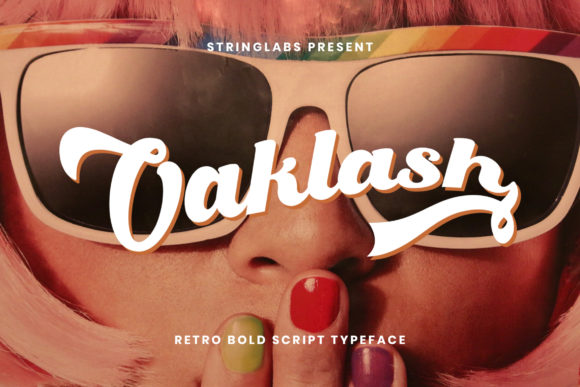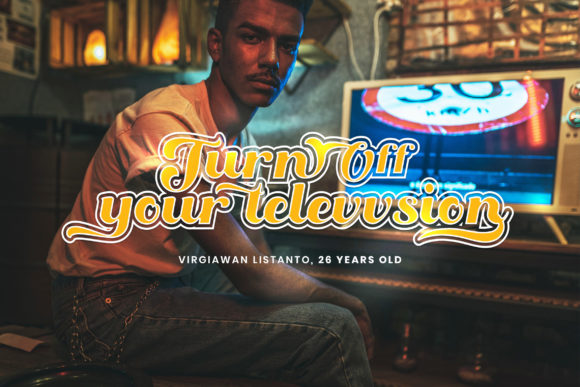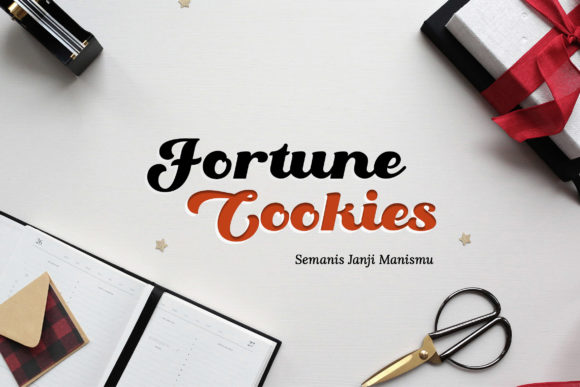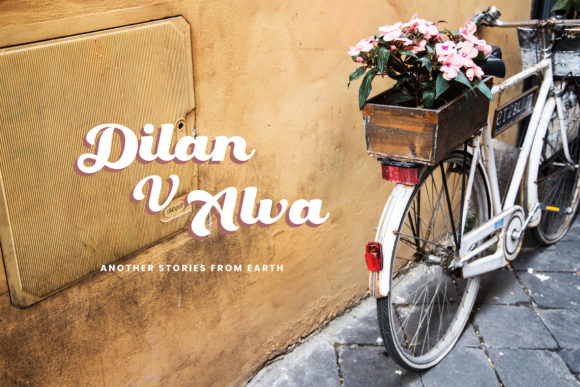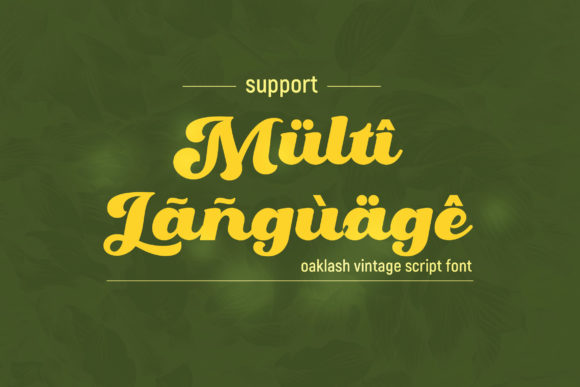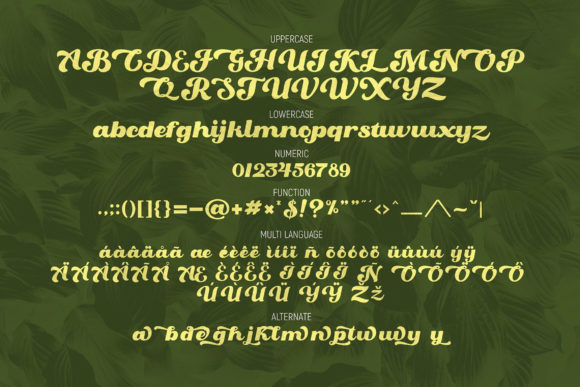
Oaklash Font
About Oaklash Font
Oaklash is a retro bold script font. It has a unique style that makes it casual and trendy. Use it for any design project that requires a personalized appearance!